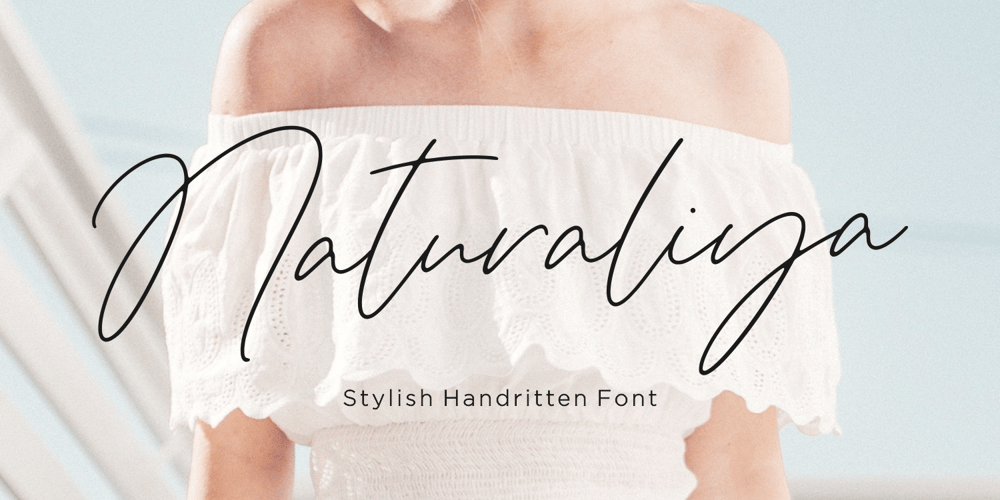
Naturaliya
Naturaliya font
Naturaliya Font Family was designed by Andre Bima Falah Rabbani and published by Atharuah Studios. Naturaliya contains 1 styles and family package options. Introducing Naturaliya; An monoline script font! Naturaliya is a hand-drawn monoline script font that showcases beauty and balance in flawless writing.It’s the perfect choice for stylish branding & logo projects, product packaging, handwritten quotes, editorial design, and more.What’s Included:Naturaliya comes with a single font file that includes uppercase, lowercase, numbers, punctuation, and multilingual support.That’s it! I hope you enjoy it.You can also say hello to me on Instagram: https://www.instagram.com/atharuah_Thank You!